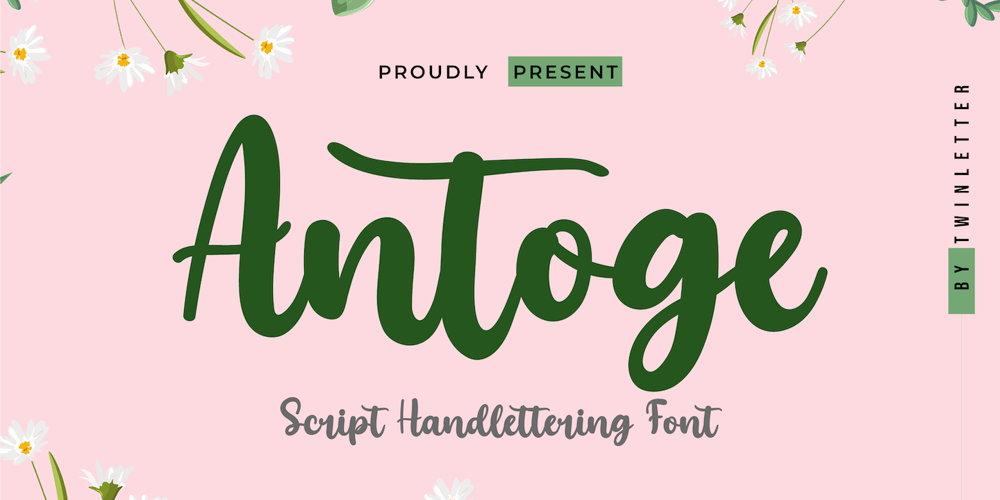
Antoge Font Family was designed by Rozikan and published by Twinletter. Antoge contains 1 styles and family package options. Antoge is a handwritten script font with a pretty and cute feel but is still beautiful and elegant to use.This font has its own charm for you to use as a title, write names, words and sentences which of course look good and charming, and certainly this font is not only limited to that purpose but is also very special for every need of your project, be it a project. formal and non-formal, this font is still beautiful and elegant. Start creating incredible designs with this font!This captivating font also offers harmoniously beautiful abstract typography for a wide variety of design projects, including digital natural handwriting for designs, design quotes, for social media business designs, advertisements, trademarks, food and beverage promotion banners, text, posters, a signature. , and all designs require handwriting or whatever design you want.What’s Included:Font file Standard glyphBinderWorks on PC & MacSimple installationIt can be accessed in Adobe Illustrator, Adobe Photoshop, Adobe InDesign, and even works in Microsoft Word.PUA Encoded Characters – Fully accessible without additional design software.Fonts include multilingual support for; Afrikaans, Albanian, Croatian, Czech, Danish, Dutch, English, Estonian, Finnish, French, German, Hungarian, Italian, Norwegian, Polish, Portuguese, Slovak, Slovenian, Spanish, Swedish